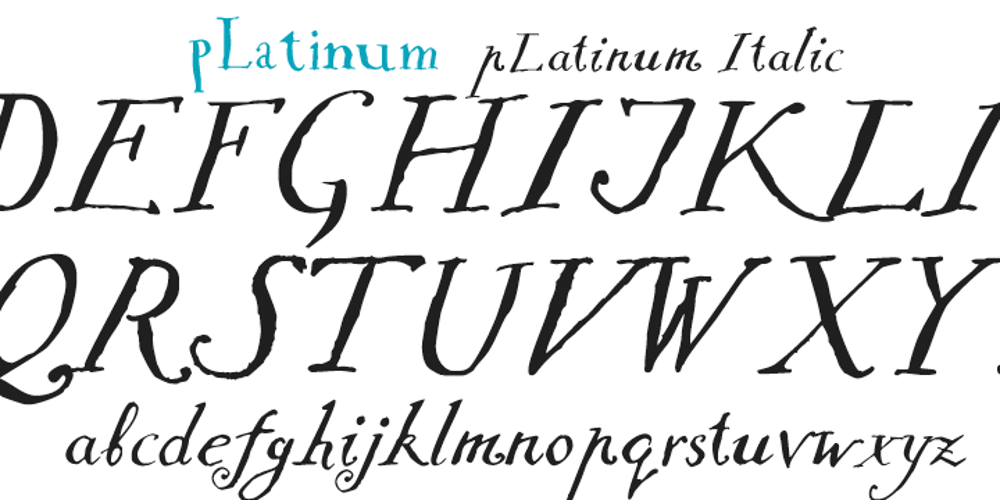
PLatinum Font Family was designed by Illarion Gordon and published by Letterhead Studio-IG. PLatinum contains 2 styles and family package options. The pLatinum family was created in 1998. Ink, scanner, Fontographer and as a result Regular and Italic styles of pLatinum typeface. Kyrillitsa’99 International type design competition Award winning typeface. The design style is “Irregular Serif”. The glyphs of pLatinum roman are reminiscent of the Russian types of early eighteenth century—especially in the smaller point sizes. An Italic, surprisingly close to the handwriting copybooks of mid-eighteenth century, is a later addition to the design.